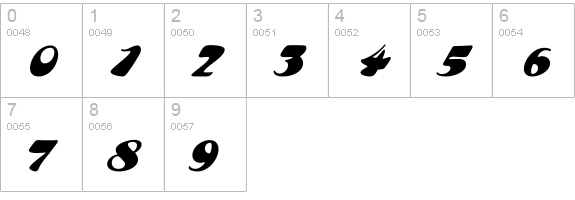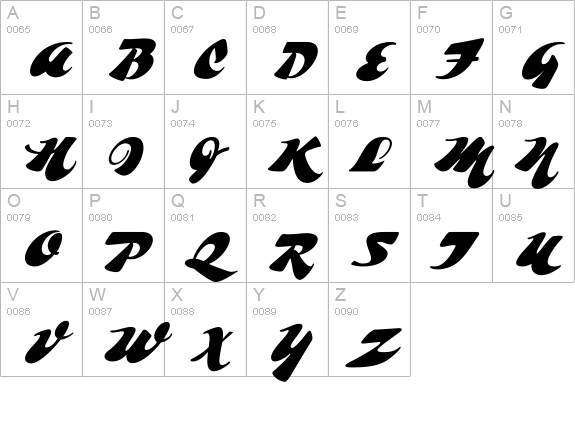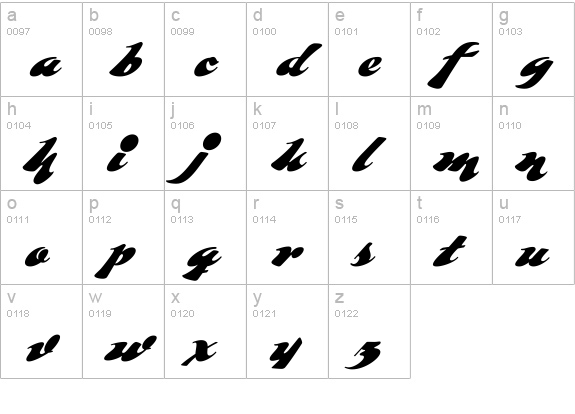
Whomp Font Details
Introducing the captivating Whomp font, the perfect blend of elegance and modernity. With its unique and eye-catching design, Whomp is sure to make a lasting impression on any project. This versatile font is ideal for a wide range of applications, from branding and logo design to headline typography and editorial layouts. Whomp is a free font that is freely available to download at FontsMarket.com. This means that you can unleash your creativity without any constraints or limitations. Whether you're an established designer or just starting out, Whomp offers a wealth of possibilities to elevate your designs to the next level. The carefully crafted curves and intricate details of Whomp make it a true standout among other fonts. Its clean and legible characters ensure maximum readability, while its subtle artistic touches add a touch of sophistication. The varying weights and styles of Whomp allow you to experiment with different looks and create stunning compositions that leave a lasting impression. With its wide language support and extensive glyph set, Whomp is a font that caters to your every need. From accented characters to special symbols, this font has it all, making it a valuable asset for multilingual projects or creative endeavors that require a diverse range of typographic elements. Whether you're designing a magazine layout, a poster, a website, or any other visual project, Whomp is the perfect choice to bring your ideas to life. Its free availability at FontsMarket.com ensures that you can easily access and incorporate this remarkable font into your creative arsenal. So why wait? Download Whomp for free at FontsMarket.com and embark on a typographic journey that will leave a lasting impression. Unleash your creativity and elevate your designs with this stunning font that seamlessly combines elegance and modernity. Whomp is here to make a bold statement and captivate audiences with its unique and captivating design.